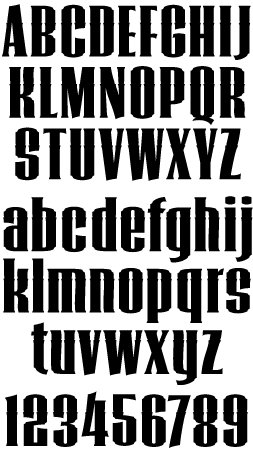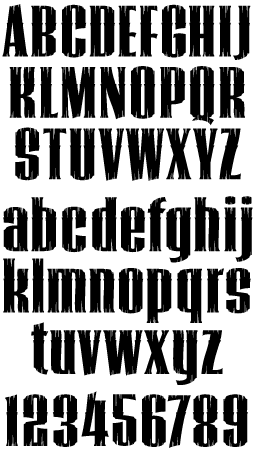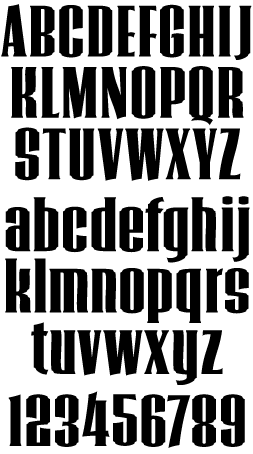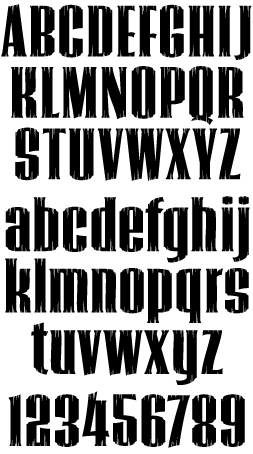
LHF Orchard Old Wood (With Spurs)
Enlarged to show detail of LHF Orchard Old Wood
This condensed style features 4 versions. Small serifs and notches on the curves give it a distinct personality.
LHF Orchard Regular (Without Spurs)
LHF Orchard Wood (Without Spurs)
LHF Orchard Old (With Spurs)